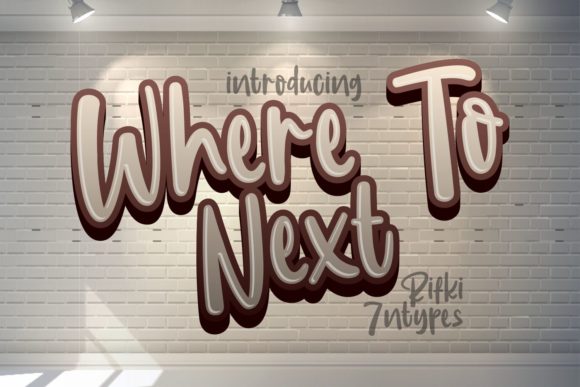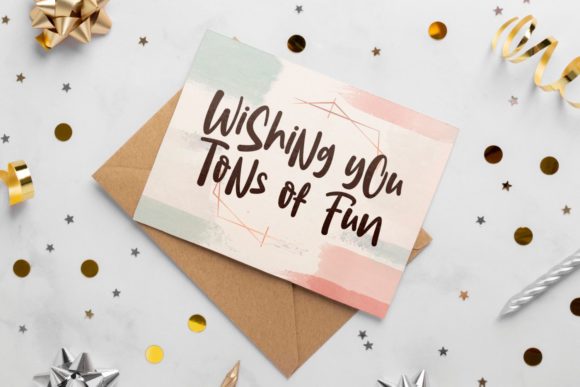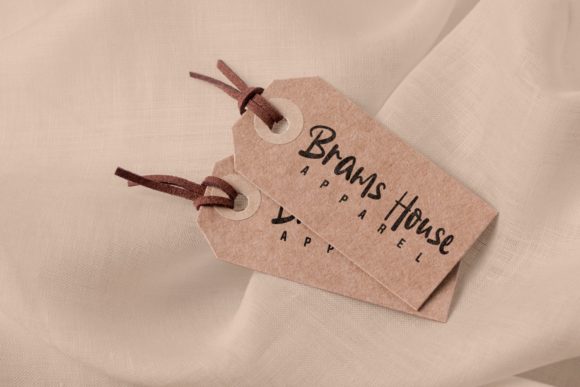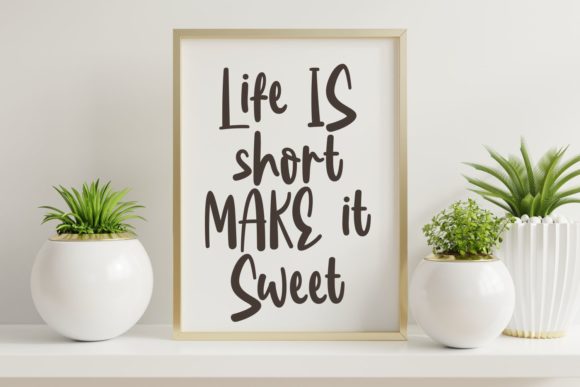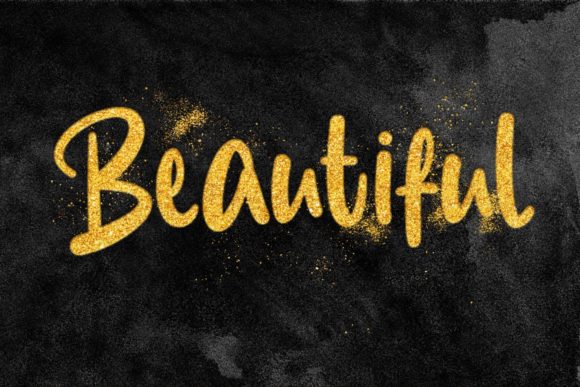
Where to Next Font
About Where to Next Font
Where To Next is a simple, cursive and trendy handwritten font. It is defined by smooth curves and is perfect for fashion branding or editorial designs. Add it confidently to your projects, and you will love the results.